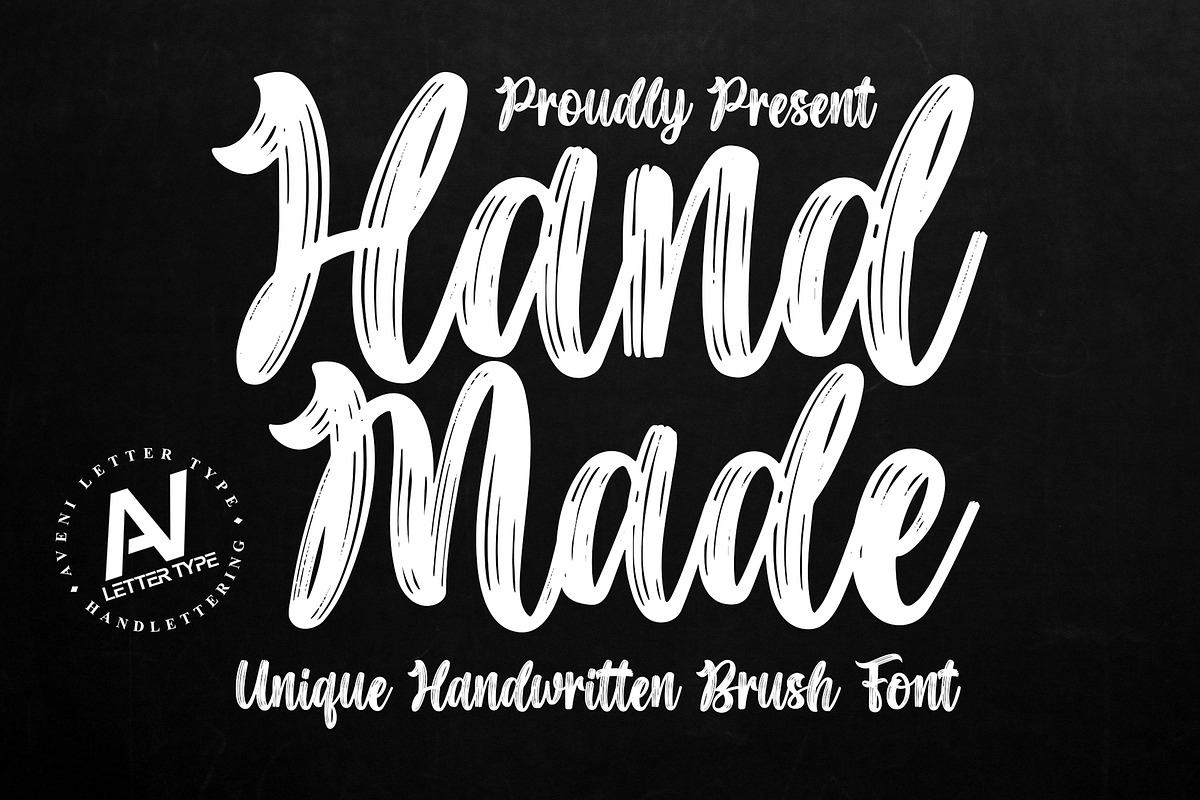
Handmade | Handwritten Brush Font Free Download
Handmade | Handwritten Brush Font Free Download is a bold, expressive typeface that captures the energy of real brush strokes. With its rough edges and dynamic flow, this handwritten font is ideal for posters, logos, apparel designs, YouTube thumbnails, social media content, and anything that needs a raw, creative vibe.
The authentic, handcrafted style of Handmade gives your designs an artistic, personal touch while still maintaining readability. It’s perfect for creatives who want to inject personality and movement into their typography.